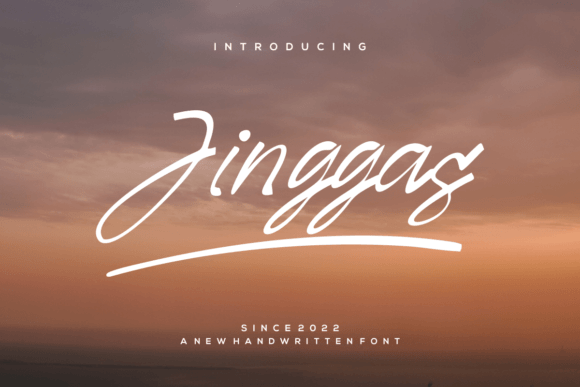
Discover the Timeless Charm of Jinggas Font
Do you remember the moment when you stumbled upon the perfect font for your project? It’s like finding the missing piece of a puzzle – everything falls into place, and your design comes alive. For designers like you, discovering the right font can be a game-changer. That’s why we’re excited to introduce you to the enchanting Jinggas Font, a sweet and elegant handwritten font that will elevate your projects to new heights.
Jinggas Font is more than just a font – it’s an experience. With its classy calligraphic influences and contemporary feel, it’s the perfect combination of old and new. Whether you’re working on a wedding invitation, a branding project, or a social media campaign, Jinggas Font is sure to add a touch of sophistication and whimsy to your design.
Jinggas Font Key Features
- Unique Characteristic: Features a unique blend of modern and traditional elements, making it perfect for creating eye-catching designs.
Jinggas Font Review
I recently had the chance to work with Jinggas Font, and I must say it’s a unique and interesting choice for designers looking to add some personality to their projects. ✨ The font’s organic and handwritten feel makes it perfect for creating a sense of warmth and approachability. It’s especially great for use in branding and marketing materials where you want to convey a sense of human connection.
- ✨ Handwritten feel adds a touch of personality to designs
- ✨ Suitable for branding, marketing, and creative projects
However, I do have a few reservations about Jinggas Font. ⚠️ The font’s irregularities can sometimes make it difficult to read, especially in larger blocks of text. Additionally, the font’s aesthetic may not be to everyone’s taste, and some users may find it too playful or distracting.
- ⚠️ Irregularities can make it difficult to read in larger text blocks
- ⚠️ Aesthetic may not appeal to all users
Overall, I think Jinggas Font is a solid choice for designers who want to add some creativity and personality to their projects. While it may not be perfect for every use case, it’s definitely worth considering for the right project.
Tips for Getting the Most Out of Jinggas Font
Here are some tips for getting the most out of Jinggas Font:
- Combine Jinggas Font with other fonts to create a unique and visually appealing design.
- Use Jinggas Font in creative and unexpected ways, such as using it as a background texture or as a decorative element.